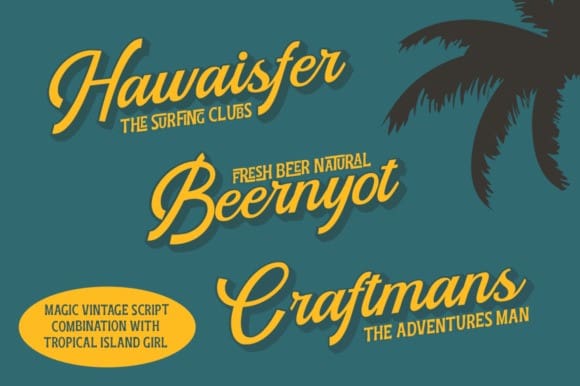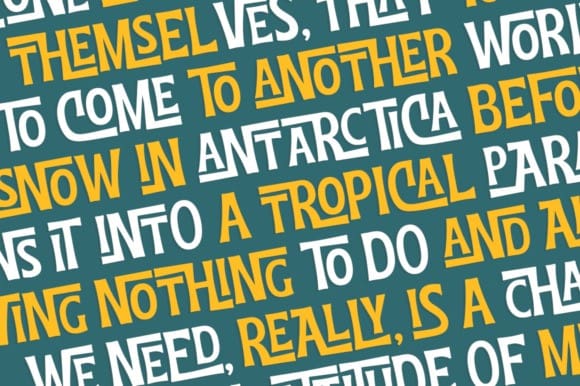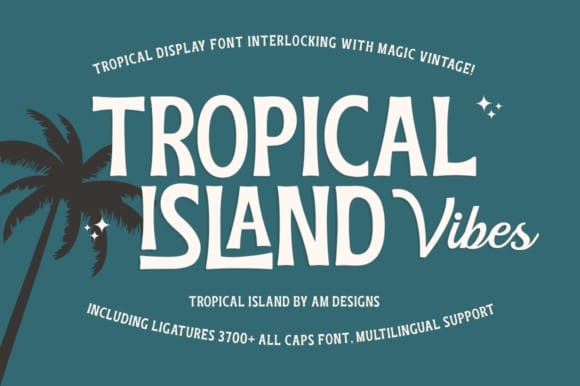
Tropical Island Vibes Font
Tropical Island Vibes Font, inspired by Vintage Bohemian & Witches Skeletons font with the addition of the Vintage Magic font, and has 3700+ unique Ligatures with a connected display. Tropical IslandVibes is best used for titles, logos, quotes, clothing designs, invitations, flyers, posters, greeting cards, product packaging, book covers, print quotes, album covers, films, and about those beach titles, etc.